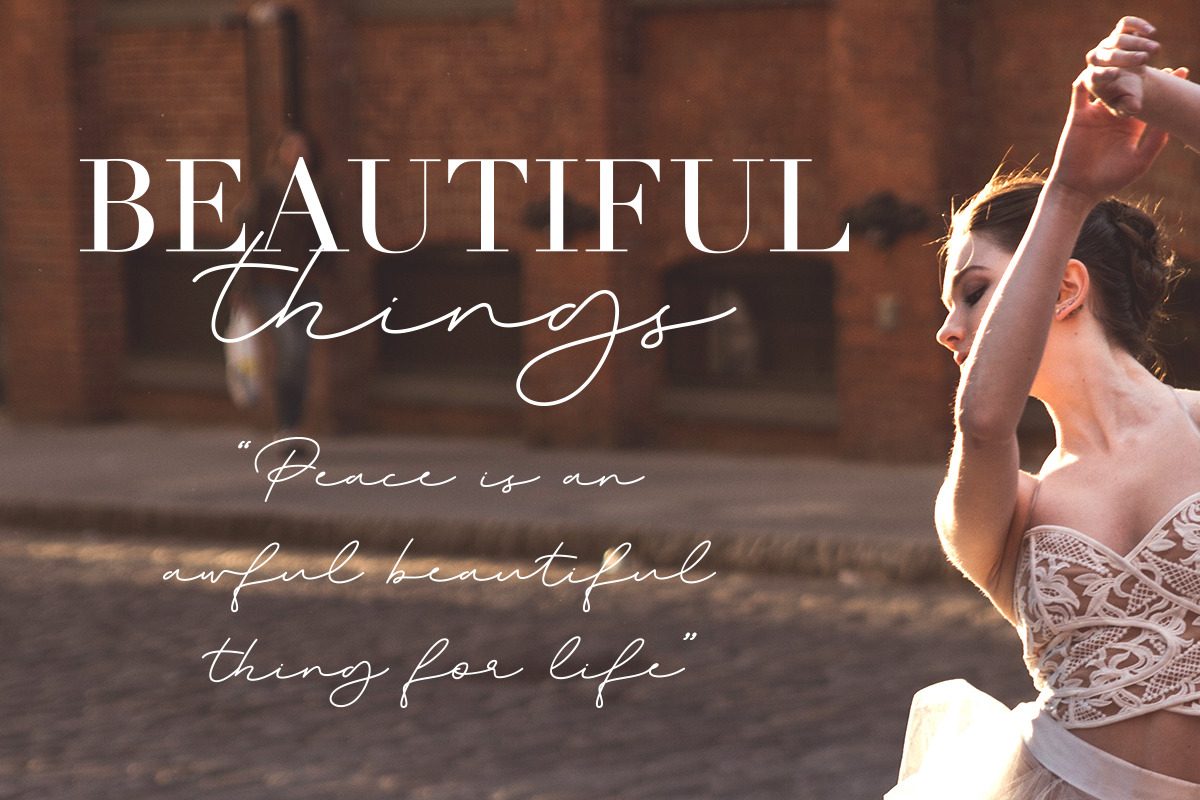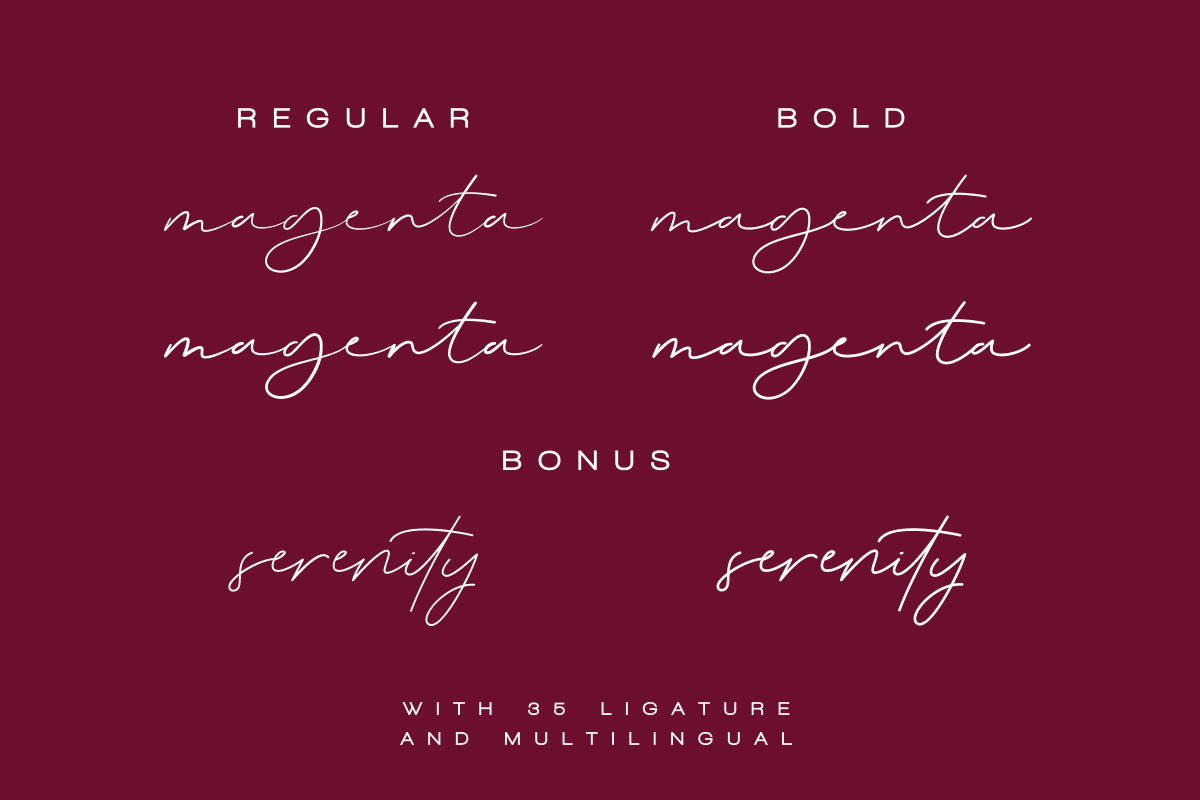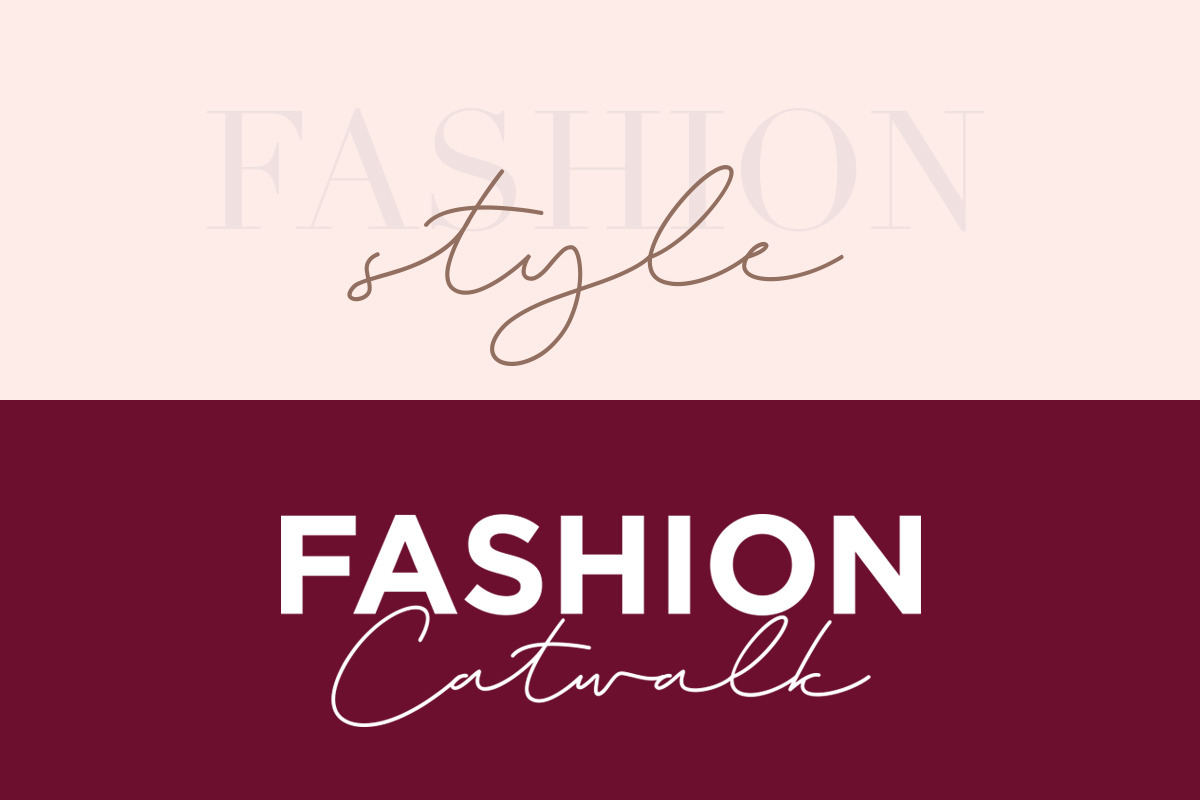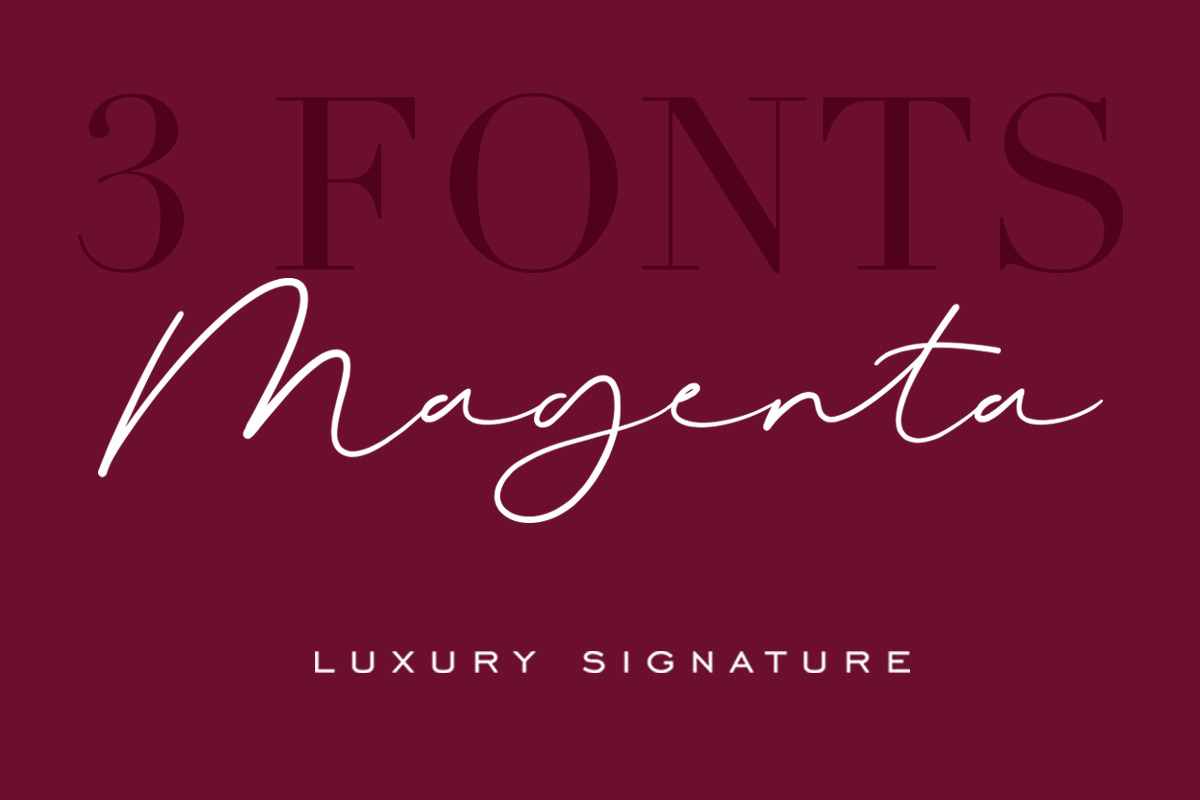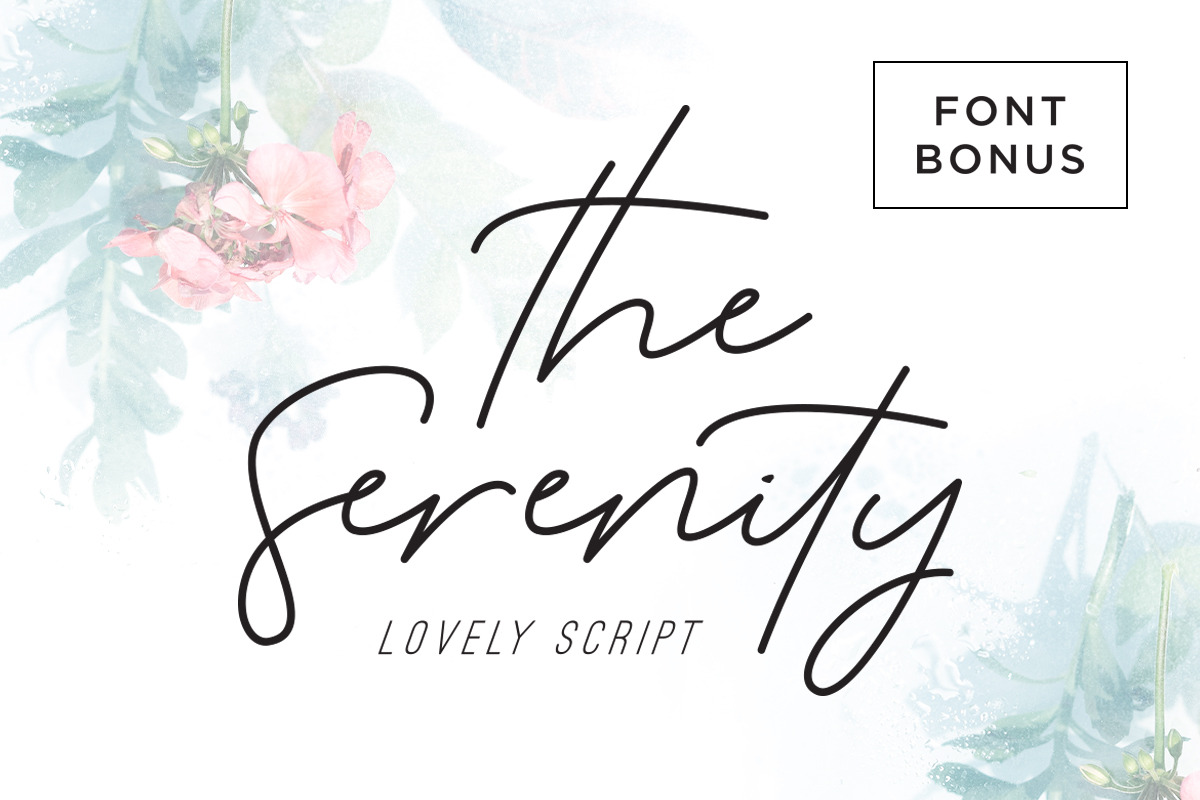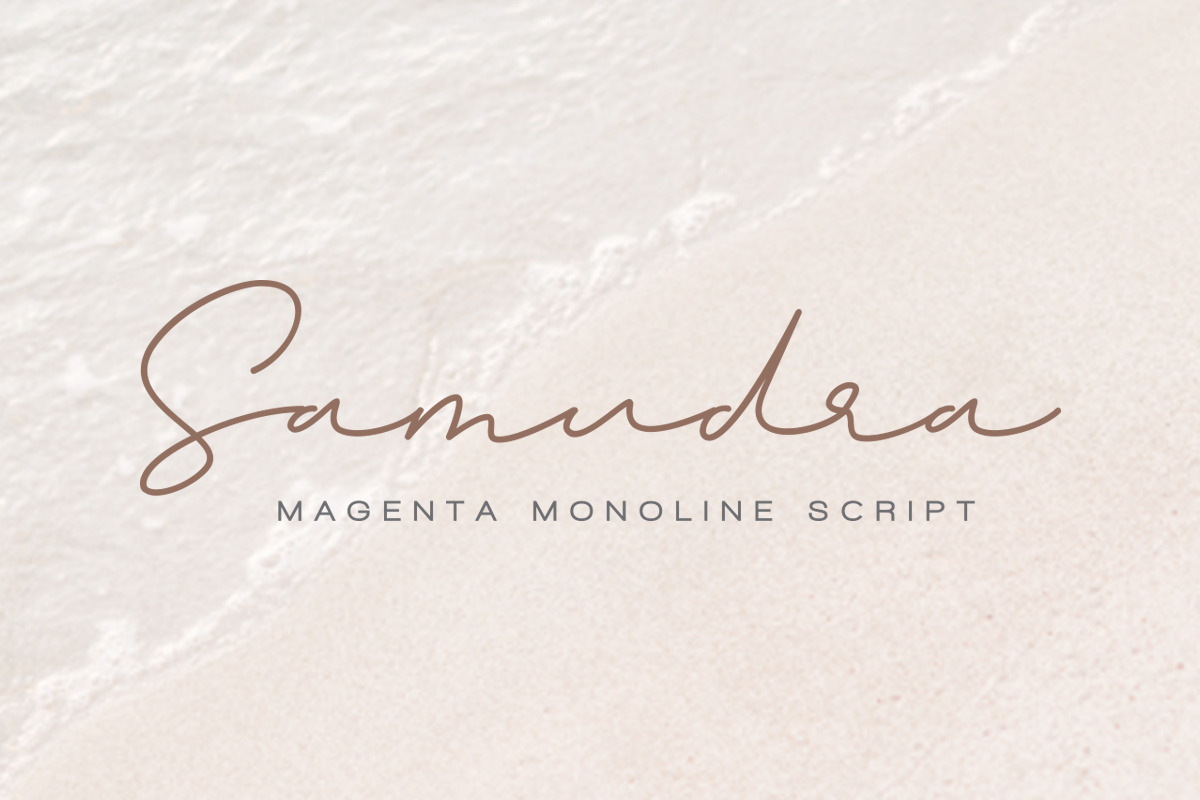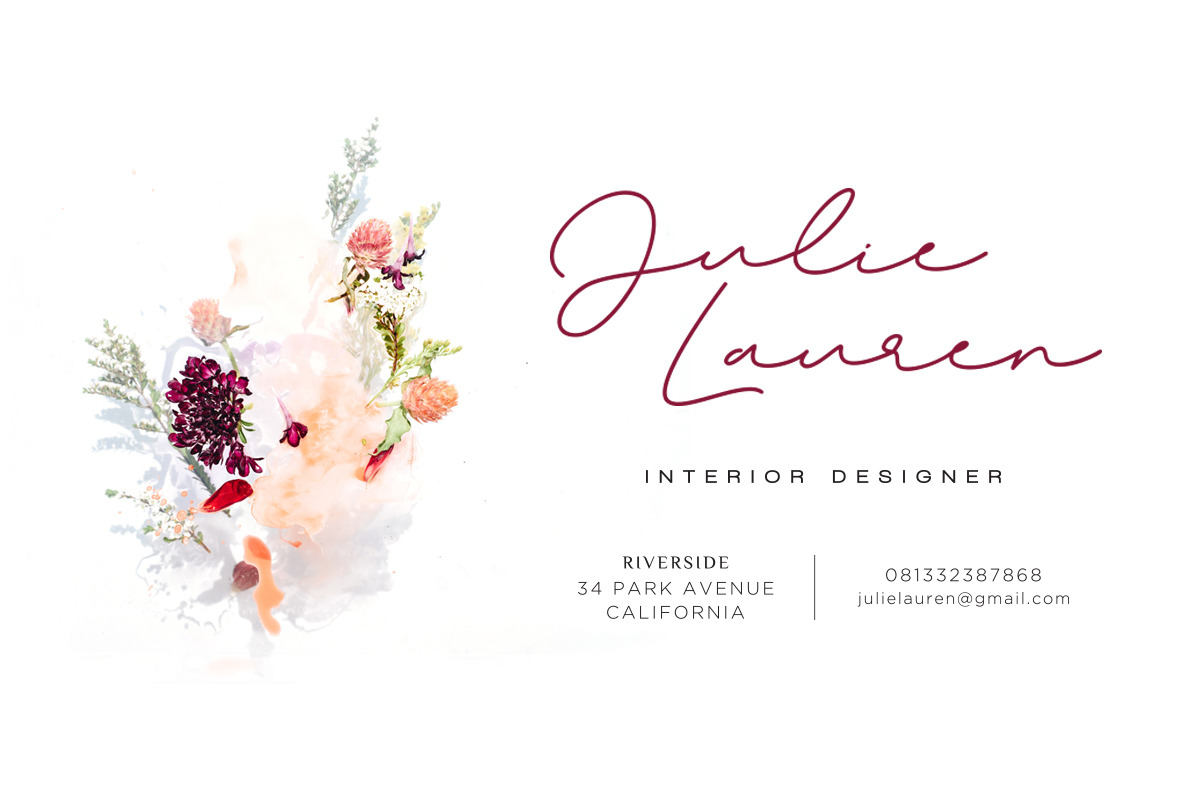
Magenta - 3 Luxury Signature Font
Magenta is a script font collection designed for signature logos, branding, product packaging, wedding stationery, social media graphics, business cards, and marketing materials. Featuring signature and monoline styles with regular and bold weights, plus the bonus Serenity font family, it provides flexible lettering for brand identities, cosmetic packaging, fashion labels, invitations, certificates, restaurant branding, and digital content.
Magenta Font Features:
4 Styles: Regular, Bold, Monoline, and Monoline Bold
30+ Stylistic Ligatures
Bonus: Serenity Regular & Serenity Bold
Letters, numbers, symbols, punctuation, special ligatures
Multilingual Characters available for:
Afrikaans, Albanian, Asu, Basque, Bemba, Bena, Breton, Chiga, Cornish, Dutch, English, Estonian, Filipino, Finnish, Friulian, Galician, German, Gusii, Indonesian, Irish, Italian, Kabuverdianu, Kalenjin, Kinyarwanda, Luo, Luxembourgish, Luyia, Machame, Makhuwa-Meetto, Makonde, Malagasy, Manx, Morisyen, North Ndebele, Nyankole, Oromo, Portuguese, Quechua, Romansh, Rombo, Rundi, Rwa, Samburu, Sango, Sangu, Scottish Gaelic, Sena, Shambala, Shona, Soga, Somali, Spanish, Swahili, Swedish, Swiss.